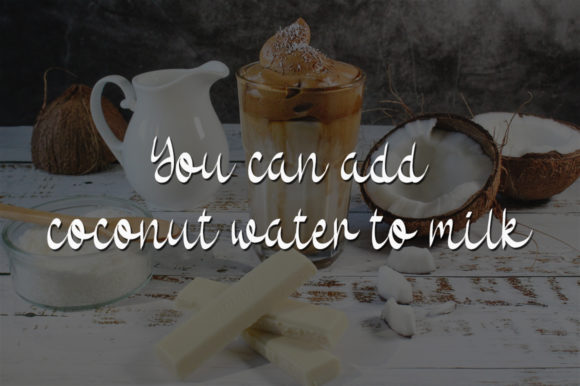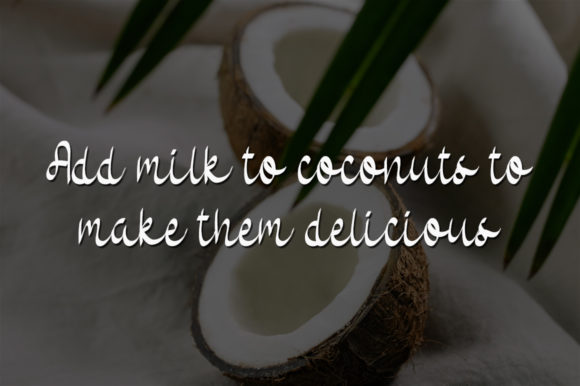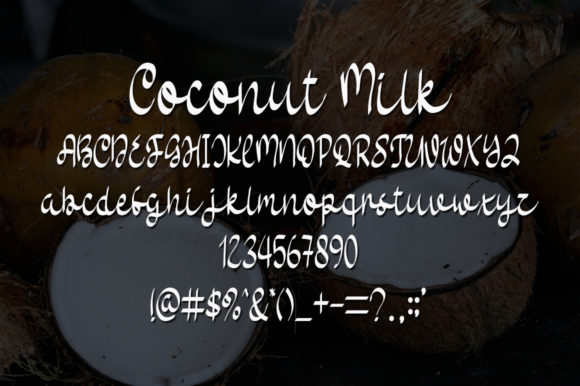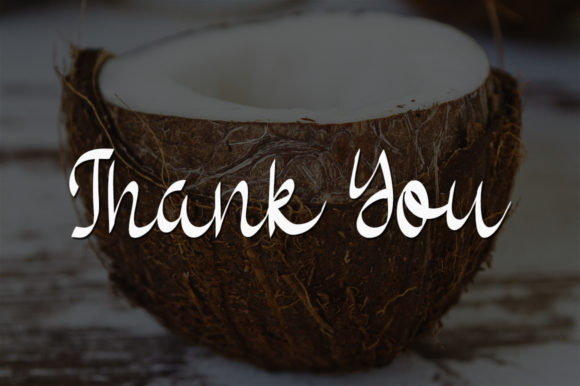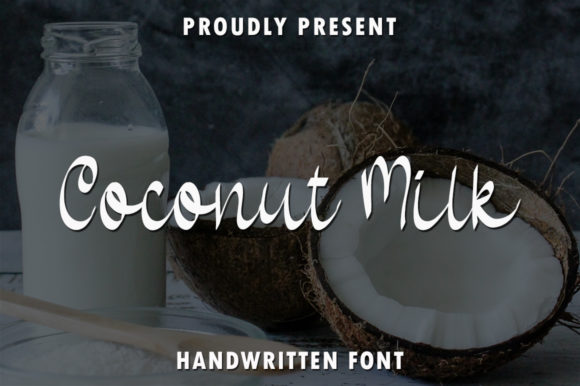
Coconut Milk Font: A Sweet and Romantic Calligraphy Typeface
Are you a designer or crafter looking for a unique and elegant font to add a touch of sweetness to your projects? Look no further than Coconut Milk, a romantic and sweet calligraphy typeface that’s perfect for a variety of applications. In this article, we’ll dive into the features and benefits of Coconut Milk, and explore how you can use it to elevate your designs.
What is Coconut Milk Font?
Coconut Milk is a beautiful calligraphy typeface characterized by its casual, yet elegant touch. The font features characters that dance along the baseline, giving it a playful and whimsical feel. With its romantic and sweet vibe, Coconut Milk is perfect for designs that require a touch of sophistication and charm.
Key Features of Coconut Milk Font
- Romantic and Sweet: Coconut Milk has a romantic and sweet feel that’s perfect for wedding invitations, Valentine’s Day cards, and other designs that require a touch of elegance.
- Casual yet Elegant: The font has a casual, yet elegant touch that’s suitable for a variety of applications, from logos and headings to t-shirts and signage.
- Playful Characters: The characters in Coconut Milk dance along the baseline, giving the font a playful and whimsical feel.
- Versatile: Coconut Milk can be used for a wide range of projects, including logos, wedding invitations, headings, t-shirts, letterhead, signage, labels, news, posters, badges, and more.
Uses of Coconut Milk Font
Coconut Milk is a versatile font that can be used for a variety of purposes. Here are some ideas to get you started:
- Wedding Invitations: Add a touch of romance and elegance to your wedding invitations with Coconut Milk.
- Logos: Use Coconut Milk to create a unique and memorable logo for your business or brand.
- Headings: Add a touch of sophistication to your headings and titles with Coconut Milk.
- T-Shirts: Create custom t-shirts with Coconut Milk for a unique and stylish look.
- Signage: Use Coconut Milk for signage, such as menus, flyers, and brochures.
- Labels: Add a touch of elegance to your labels with Coconut Milk.
- Posters: Create eye-catching posters with Coconut Milk.
- Badges: Use Coconut Milk to create custom badges for events or promotions.
Tips for Using Coconut Milk Font
Here are some tips for using Coconut Milk effectively in your designs:
- Pair with Other Fonts: Pair Coconut Milk with other fonts to create a unique and interesting contrast.
- Use for Headlines: Use Coconut Milk for headlines and titles to add a touch of elegance and sophistication.
- Keep it Simple: Keep your design simple and clean to let Coconut Milk shine.
Coconut Milk is a beautiful and versatile calligraphy typeface that’s perfect for designers and crafters looking to add a touch of sweetness and elegance to their projects. With its romantic and sweet vibe, casual yet elegant touch, and playful characters, Coconut Milk is suitable for a wide range of applications. Whether you’re creating wedding invitations, logos, headings, or posters, Coconut Milk is a great choice. So why not give it a try and see how it can elevate your designs?